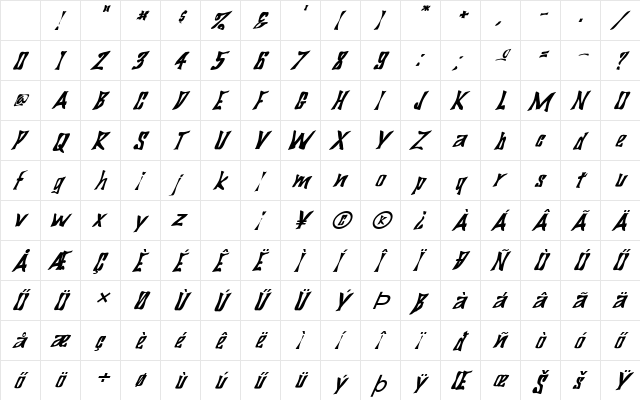
WARPED29 HU is a composed and adaptable typeface that performs quietly and consistently across a wide range of design contexts. The slanted form adds forward momentum and visual energy.
Pro Tip: Use WARPED29 HU for emphasis, pull quotes, and subheadings where its slanted energy can add rhythm to the layout.